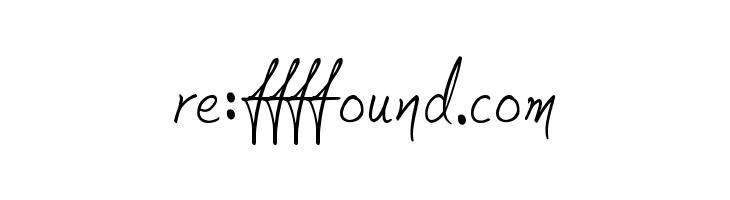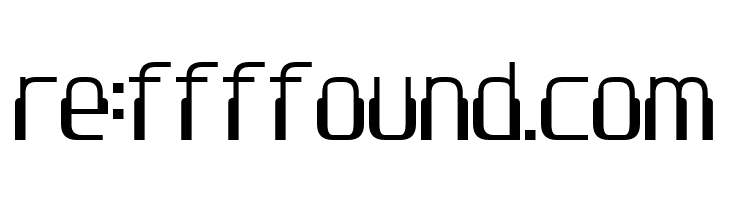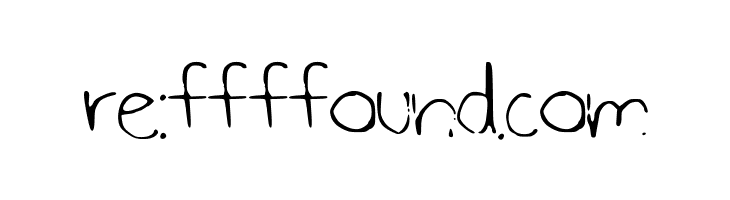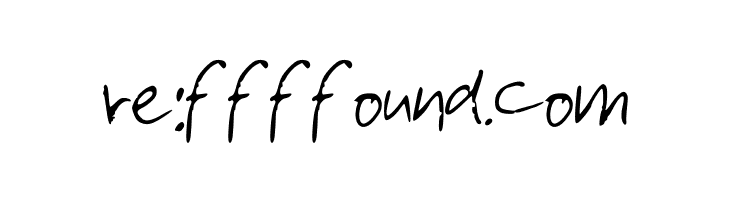
A modern, geometric font with clean lines and rounded corners.
A playful, handwritten font with irregular strokes and a casual vibe.
A fluid and dynamic handwritten font with elegant, slightly irregular strokes.
A playful, handwritten font with smooth, rounded strokes and a casual feel.